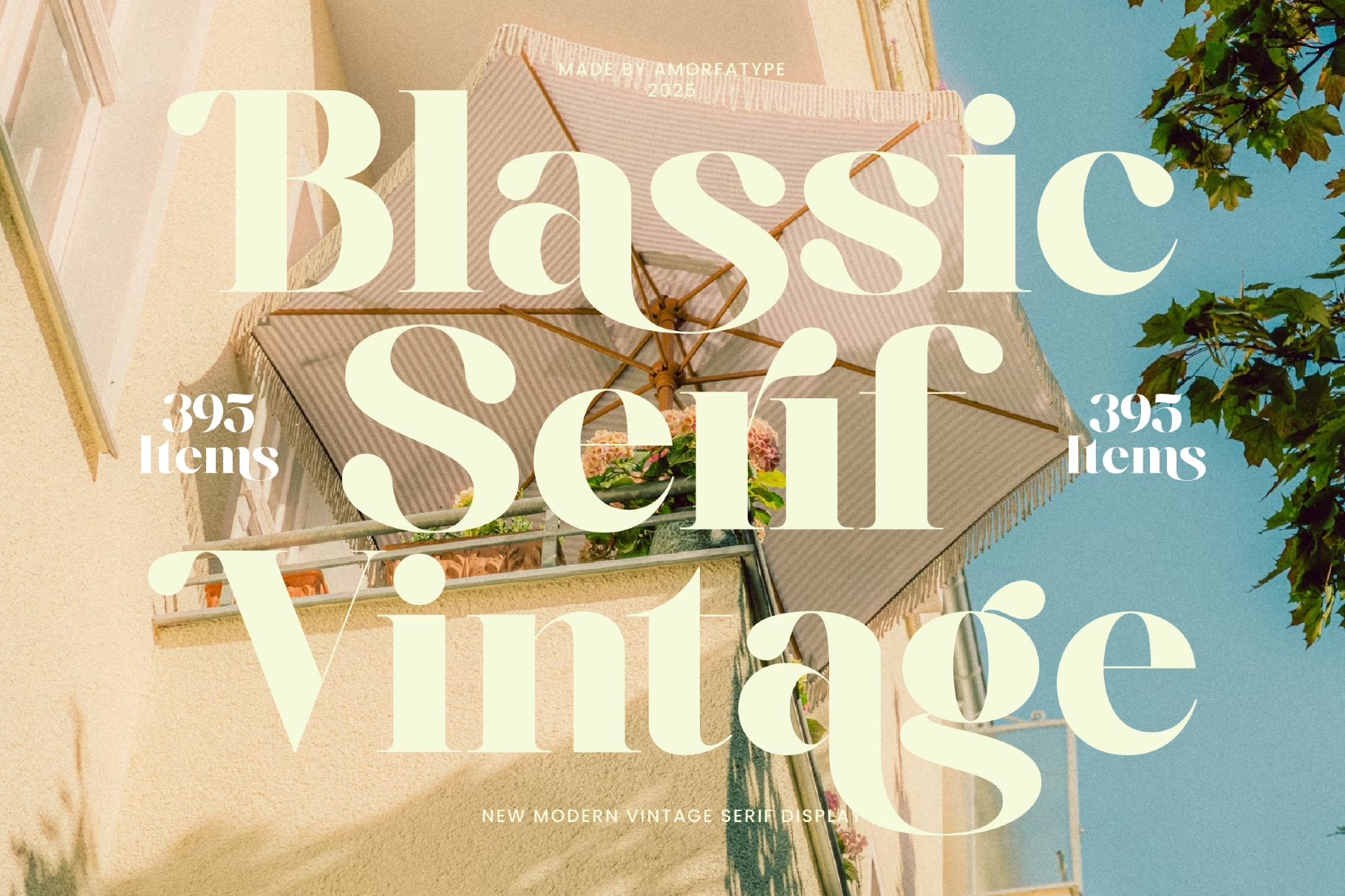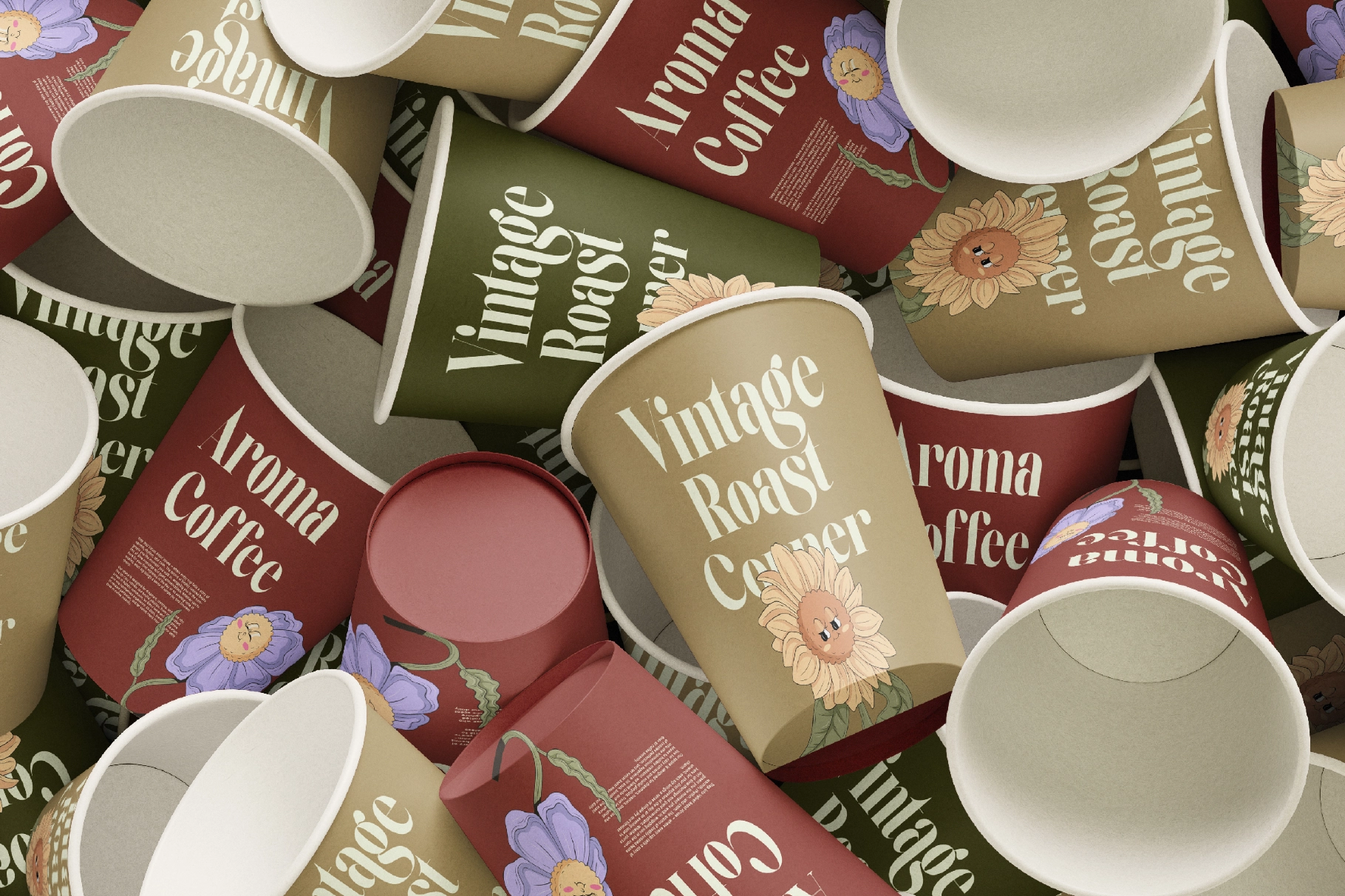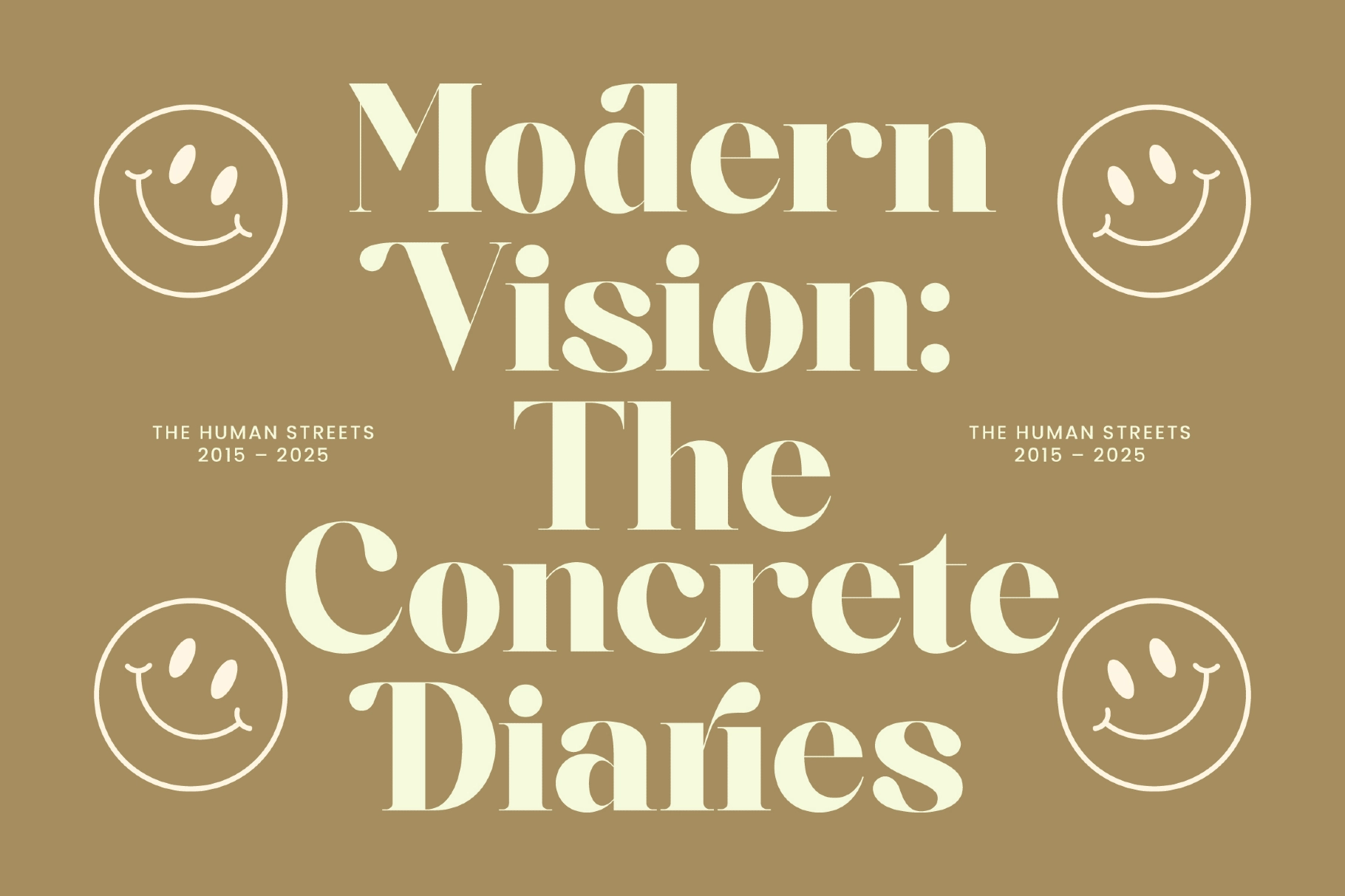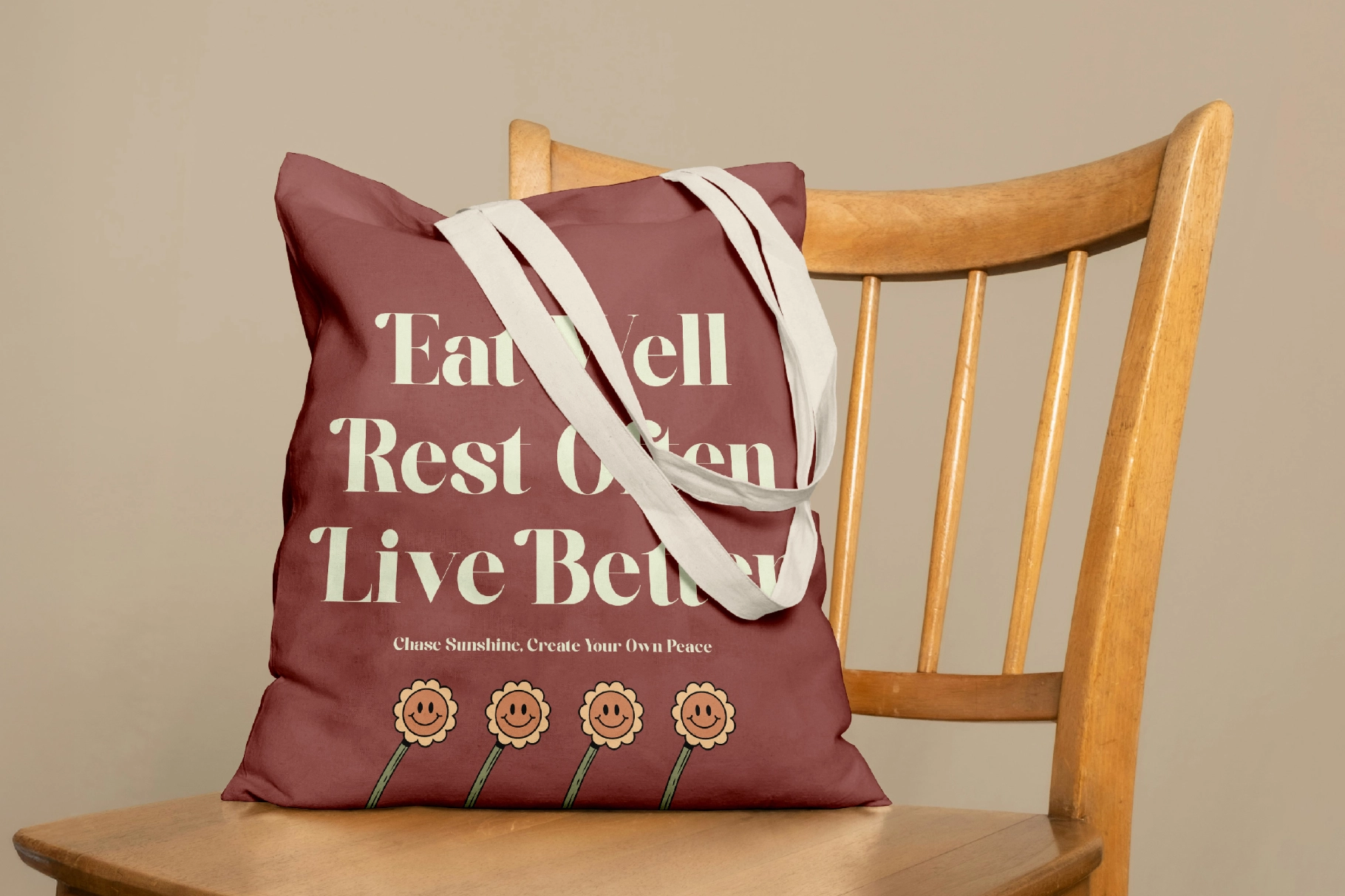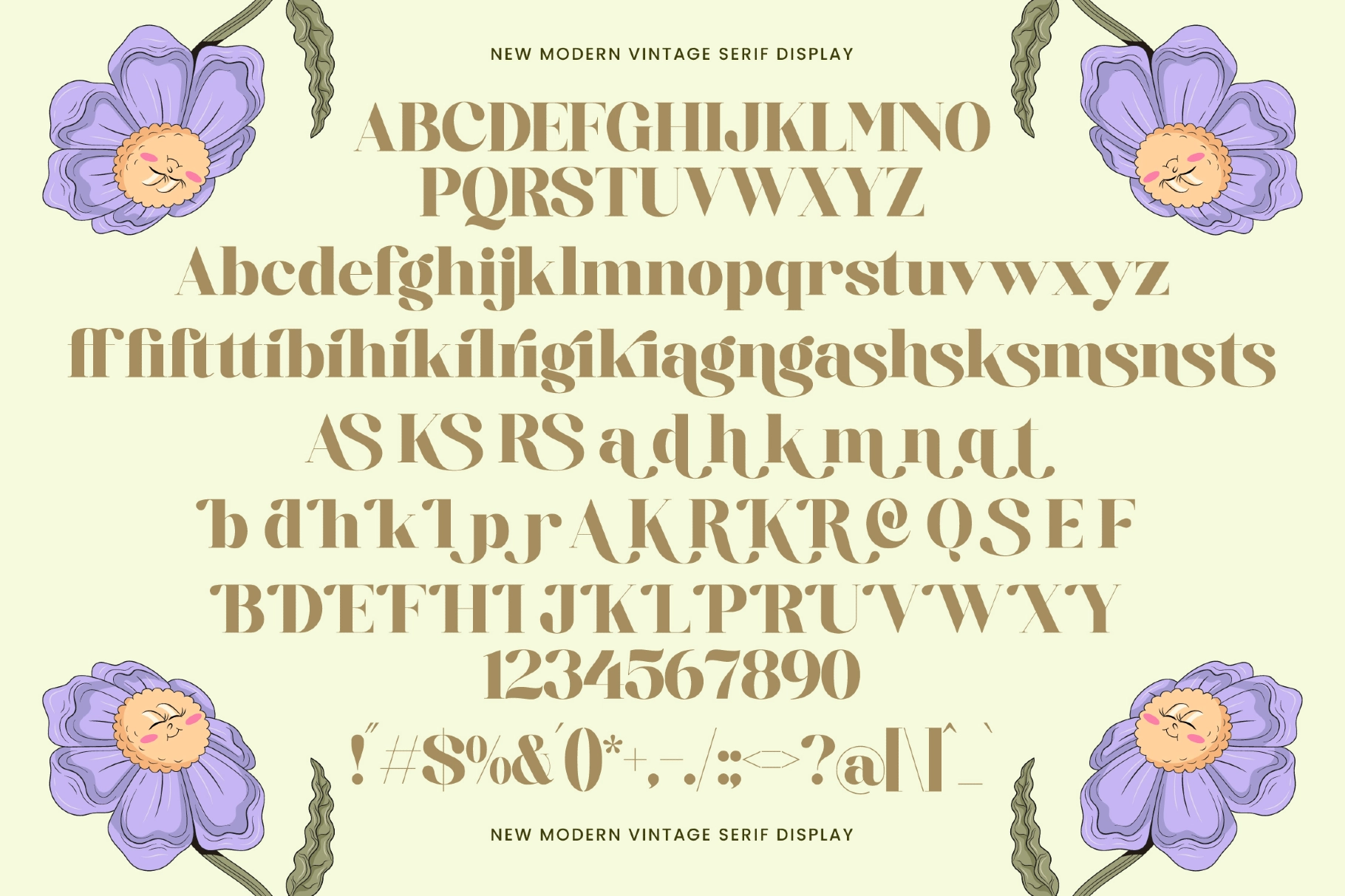
Blassic - Modern Vintage Serif Font
This display serif has a confident retro shape with high contrast strokes, soft ball terminals, and dramatic curves that know their way around a headline. The letterforms carry a polished 1970s editorial mood, softened by playful alternates and ligatures that keep the set expressive without tipping into costume.
Blassic is a strong choice for logo design, boutique branding, coffee packaging, fashion labels, magazine titles, poster layouts, tote bag prints, social media quotes, restaurant menus, stationery, merch graphics, and more. It has enough character for a full visual identity, yet the clean spacing and crisp forms keep it practical for everyday design work.
- 395 Glyphs Total
- 41 Alternates & 22 Ligatures